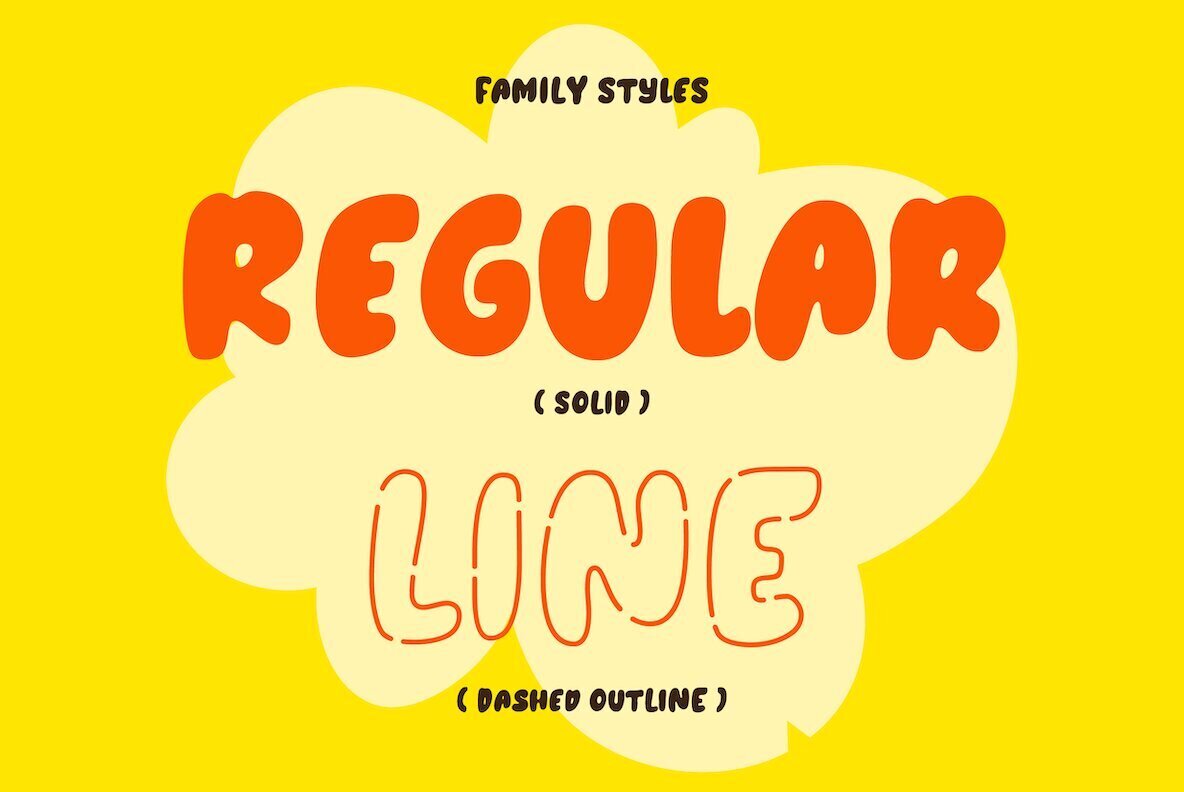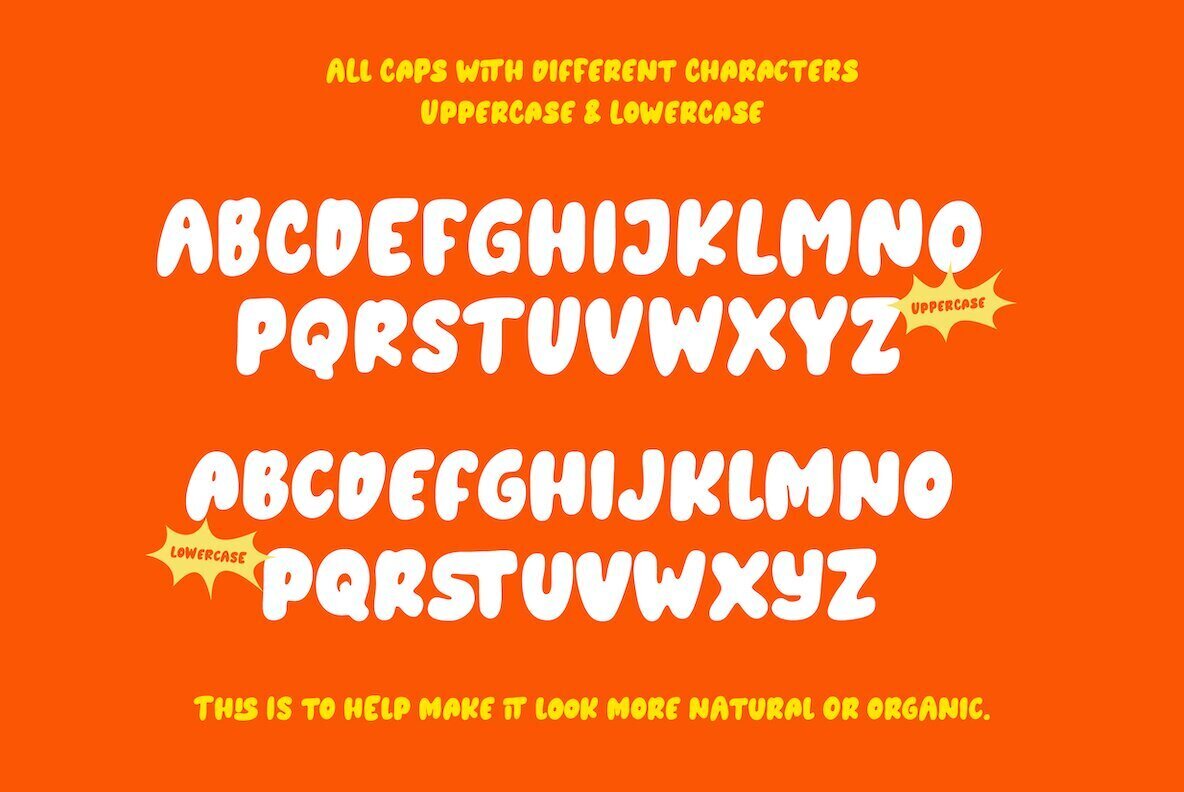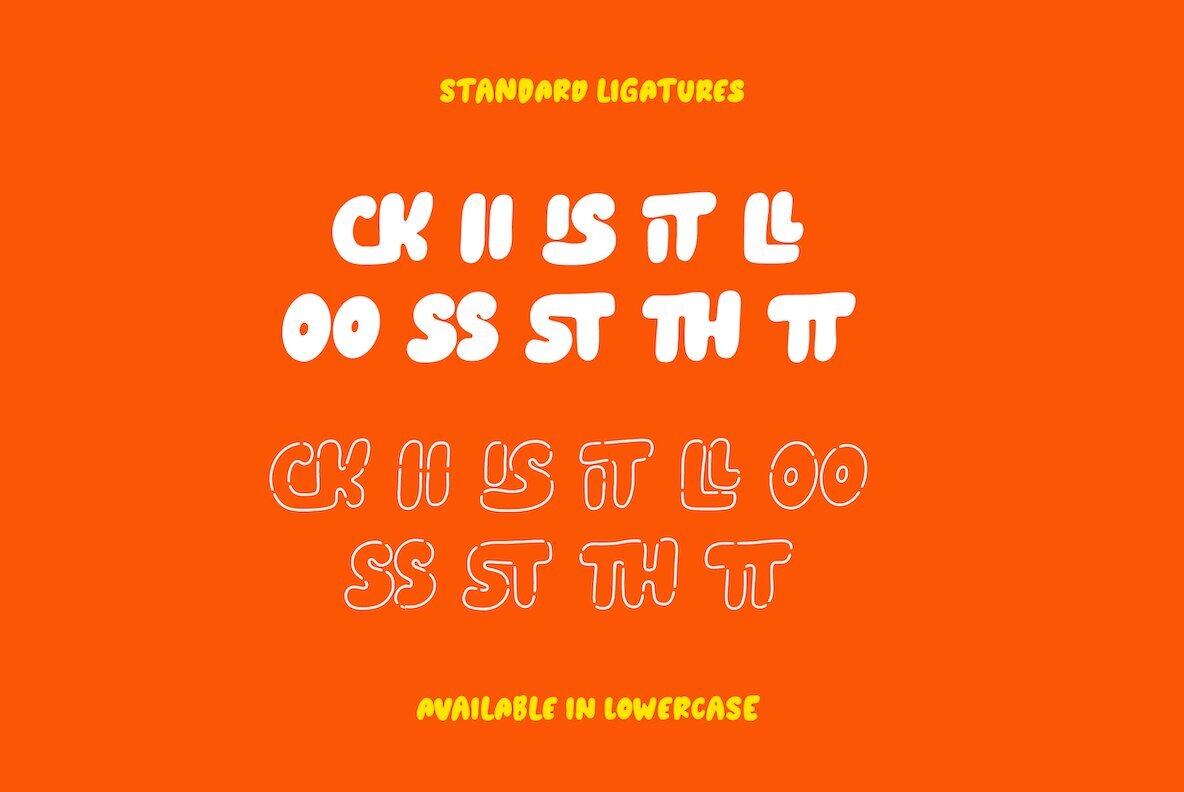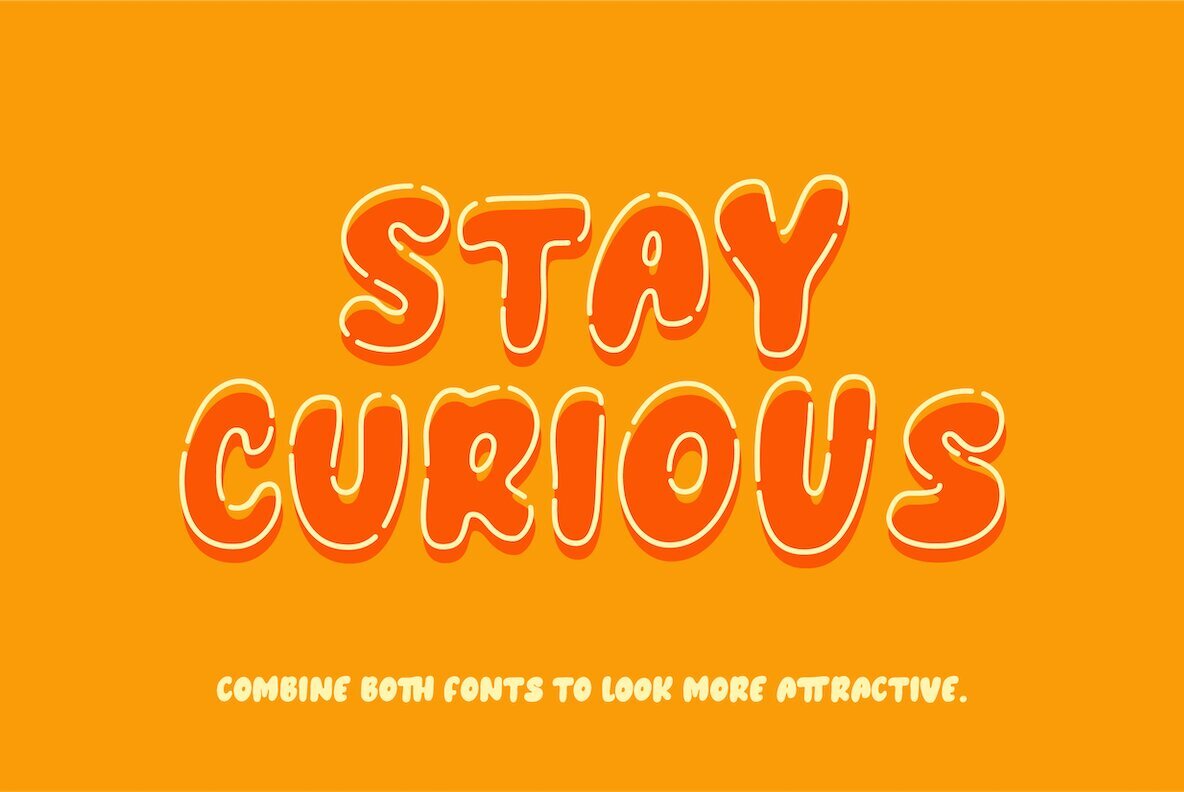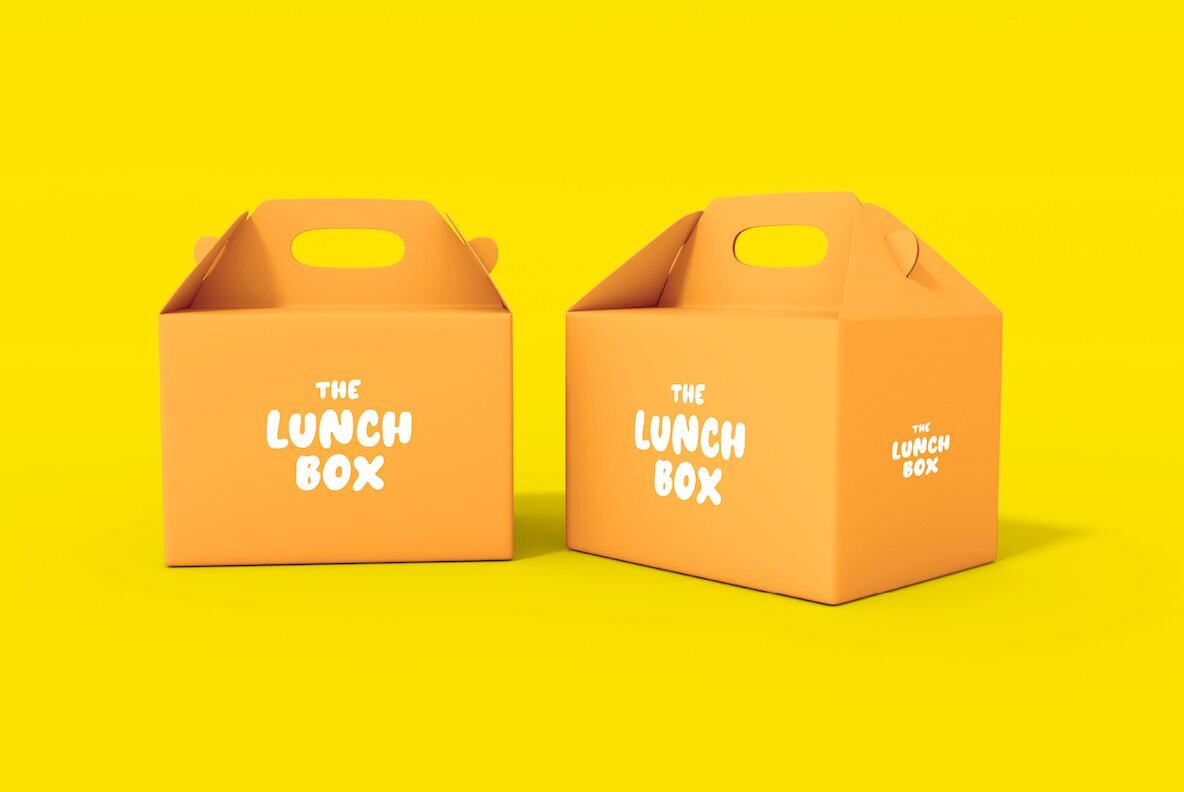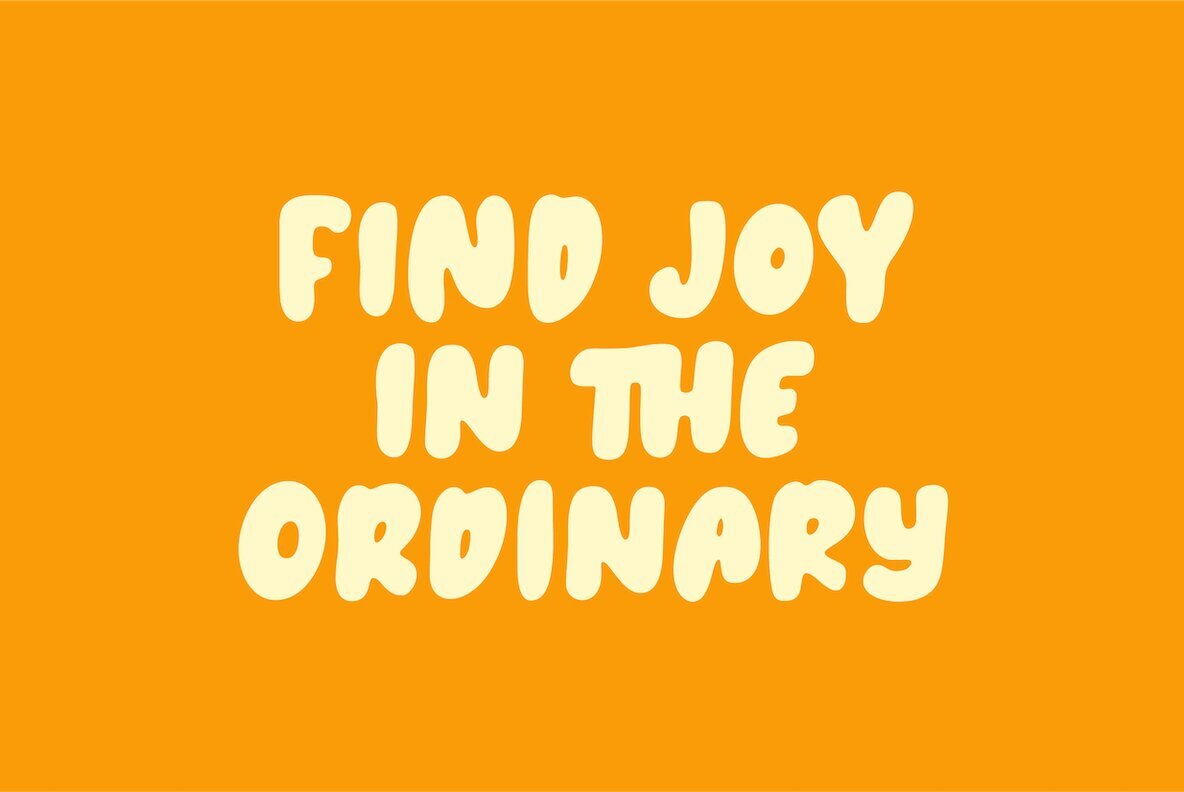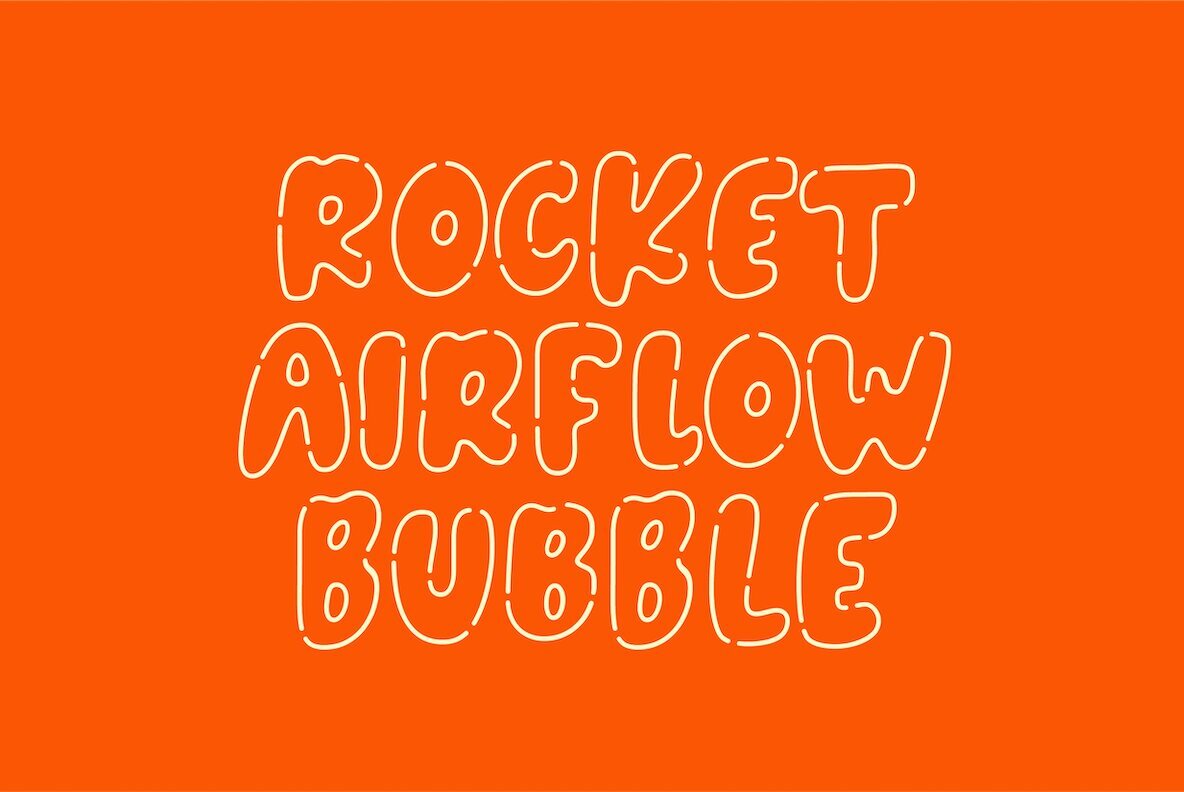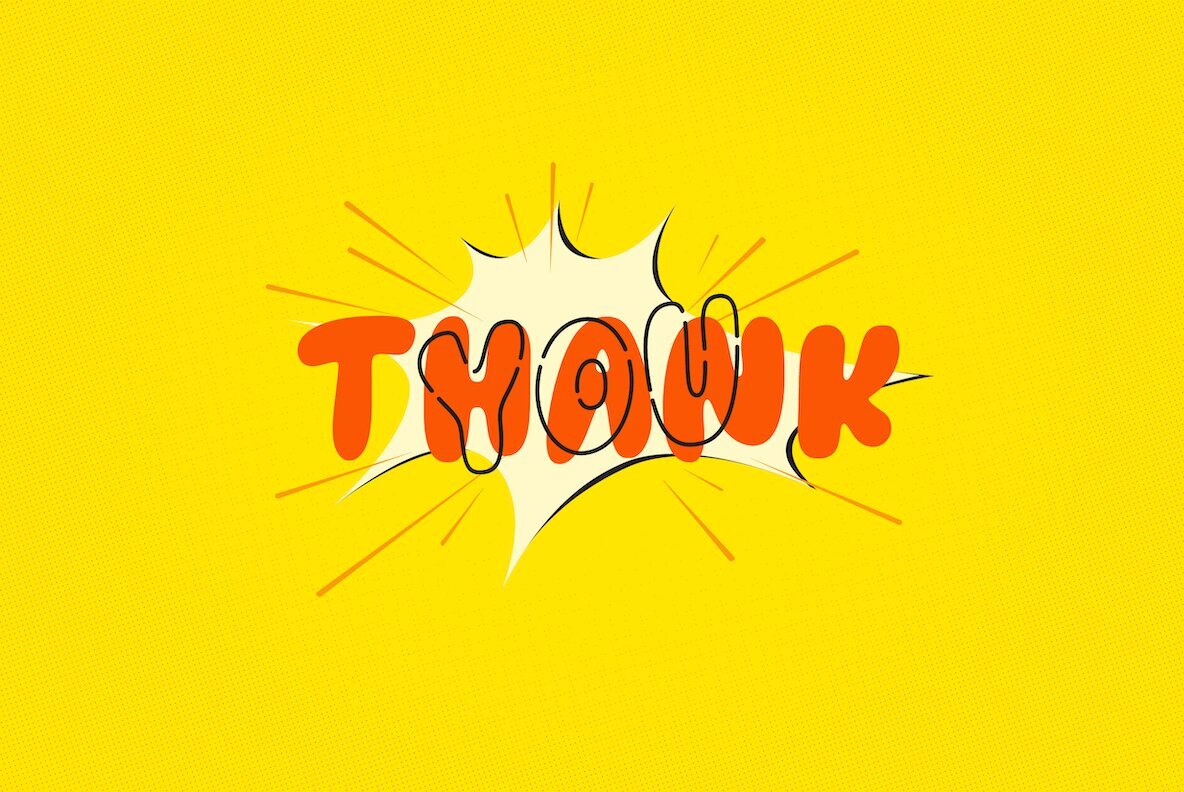
Joypops Font
Joypops Regular
Joypops Line
Joypops is a delightful handwritten bubble font featuring two versatile styles: solid and dashed lines. These styles create a playful combination that adds charm to any project, enhanced with ligatures and alternates for extra creativity. Joypops supports over 100 languages, making it ideal for diverse design applications. Perfect for logo design, social media graphics, movie and book titles, as well as both short and long text passages. Joypops pairs beautifully with sans or serif fonts as a secondary text choice, ensuring standout designs. Includes support for LATIN EXTENDED (Western European, Central European, South Eastern European) languages.Joypops: A Bubbly Handwritten Font